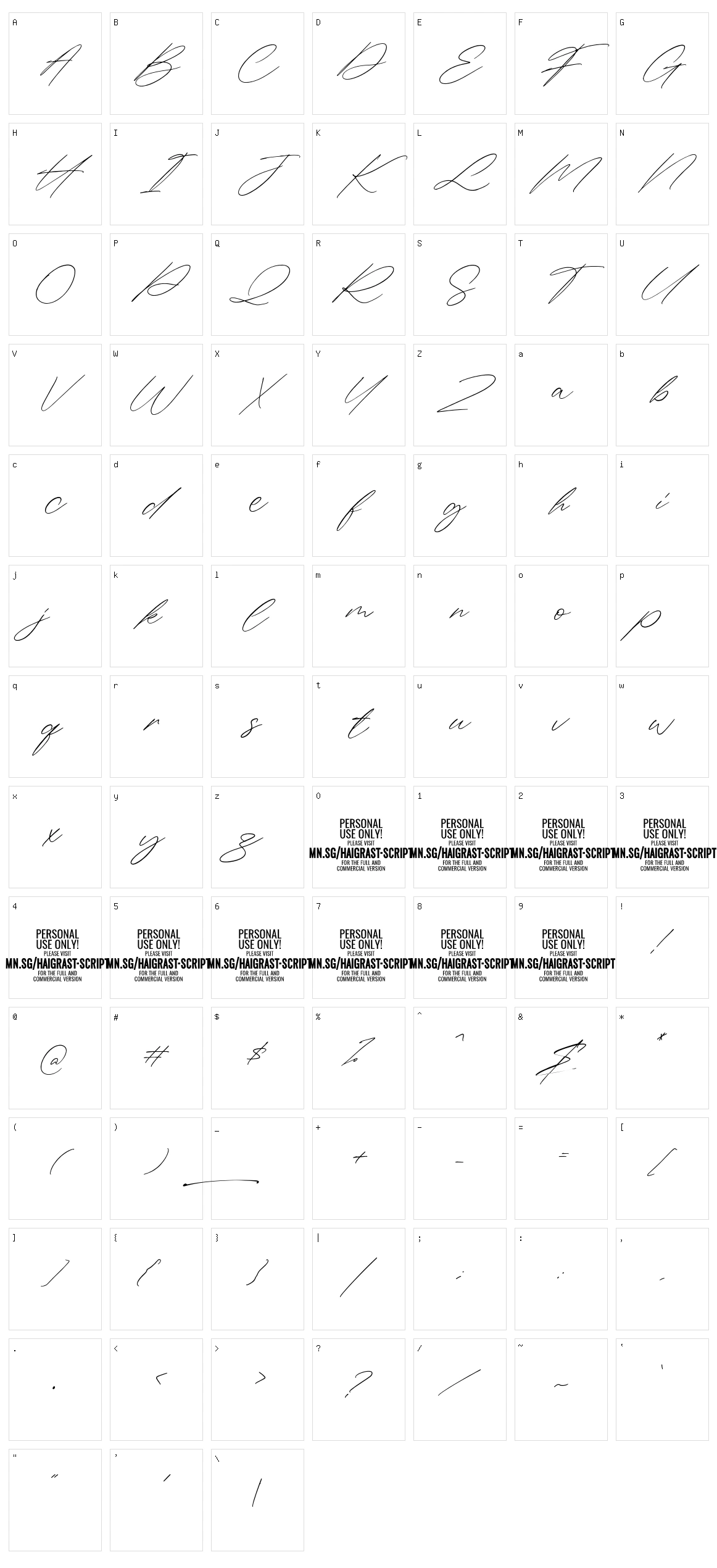
Haigrast Script is the light and thin handwritten font that brings a touch of fashion and fun to any project.
Designed by Mans Greback in 2023, this signature script font is the perfect choice for designers looking to add a touch of personality to their work.
With its cute and feminine design, Haigrast Script is ideal for wedding invitations, fashion logos, and other creative projects that require a fast, active and wild style.
This font is perfect for those who want to make a bold statement in their design work.
Whether you're creating a fashion magazine cover, a social media post, or a wedding invitation, Haigrast Script is the perfect choice for designers who want to make a lasting impression.
Use underscore _ to make an underline swash.
Example: Love_letter
Use multiple underscores different underlines.
Hand__________writer
The Haigrast Script family consists of four high-quality fonts:
Regular, Italic, Bold and Bold Italic
Also includes the bonus font Haigrast Serif!
The font is built with advanced OpenType functionality and has a guaranteed top-notch quality, containing stylistic and contextual alternates, ligatures and more features; all to give you full control and customizability.
It has extensive lingual support, covering all Latin-based languages, from Northern Europe to South Africa, from America to South-East Asia.
It contains all characters and symbols you'll ever need, including all punctuation and numbers.